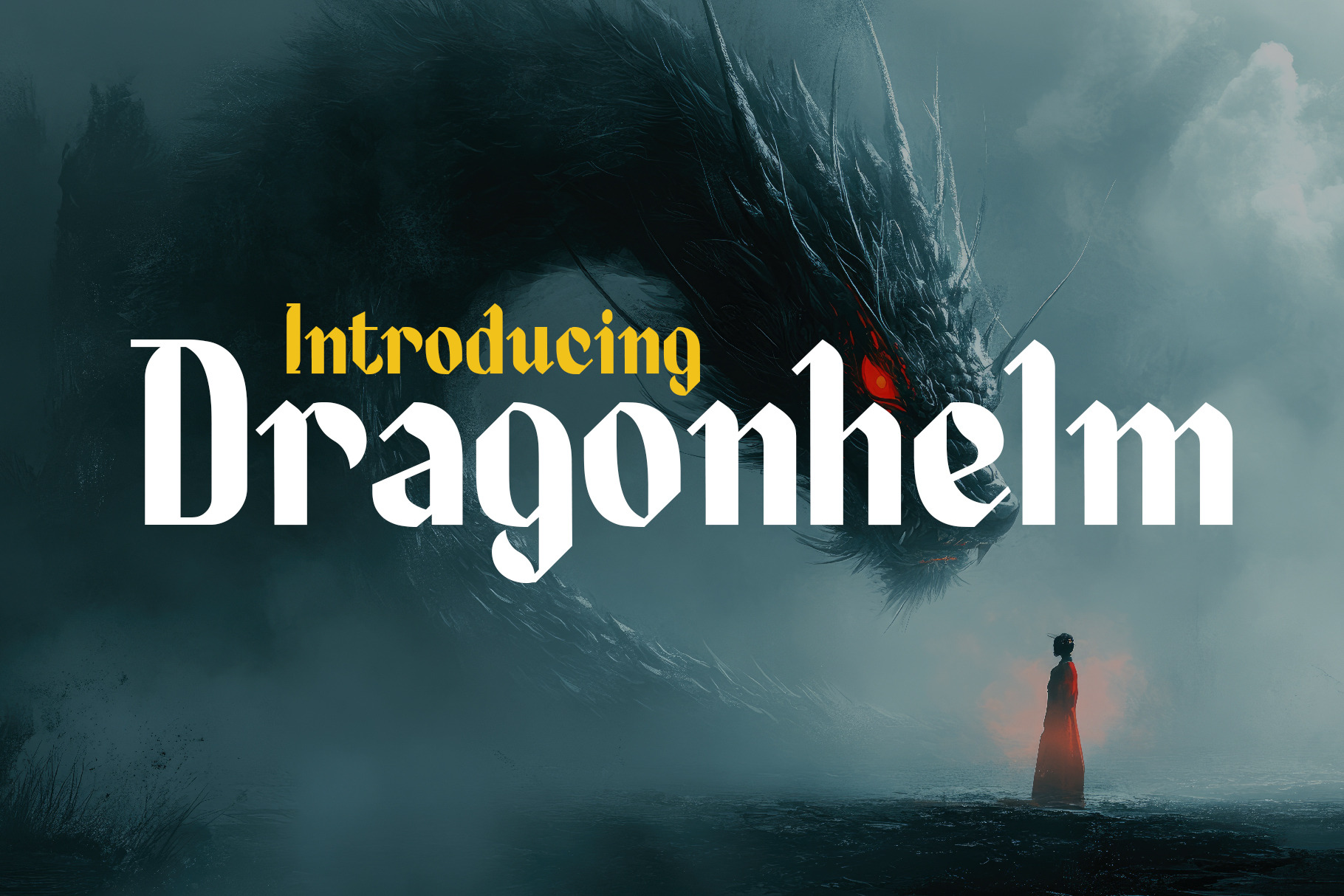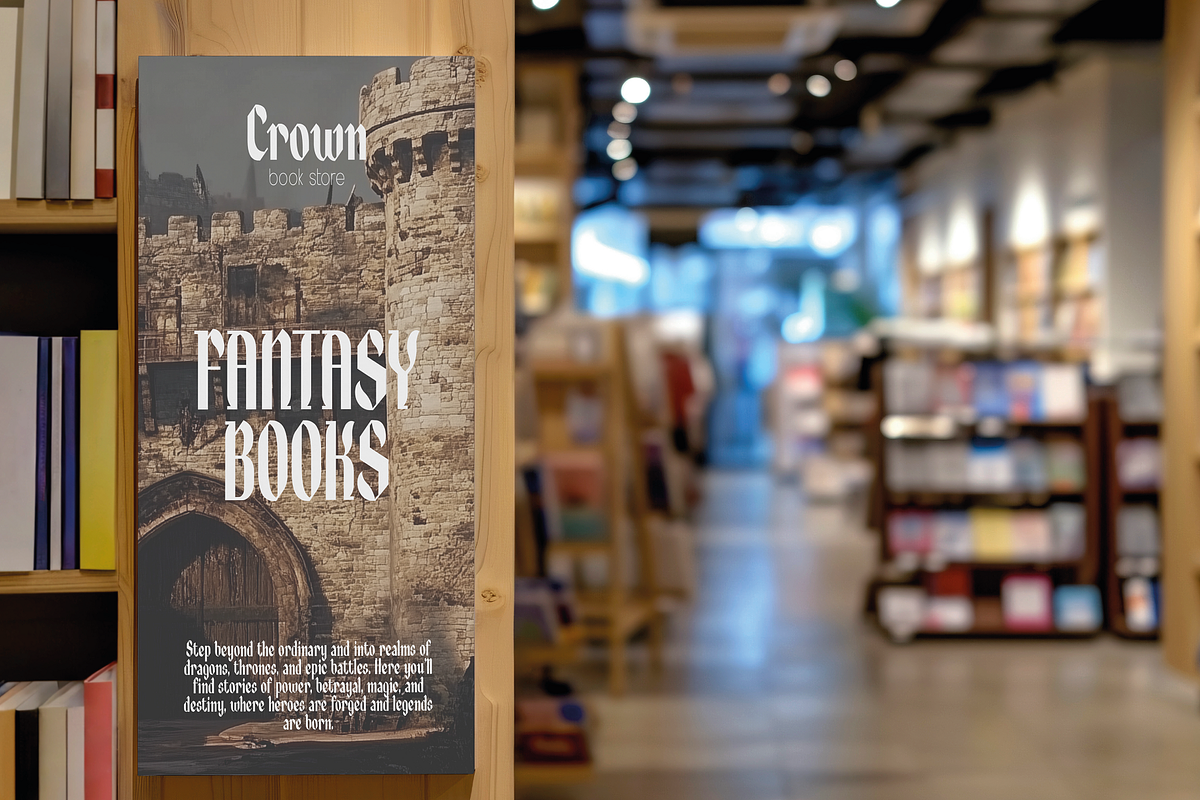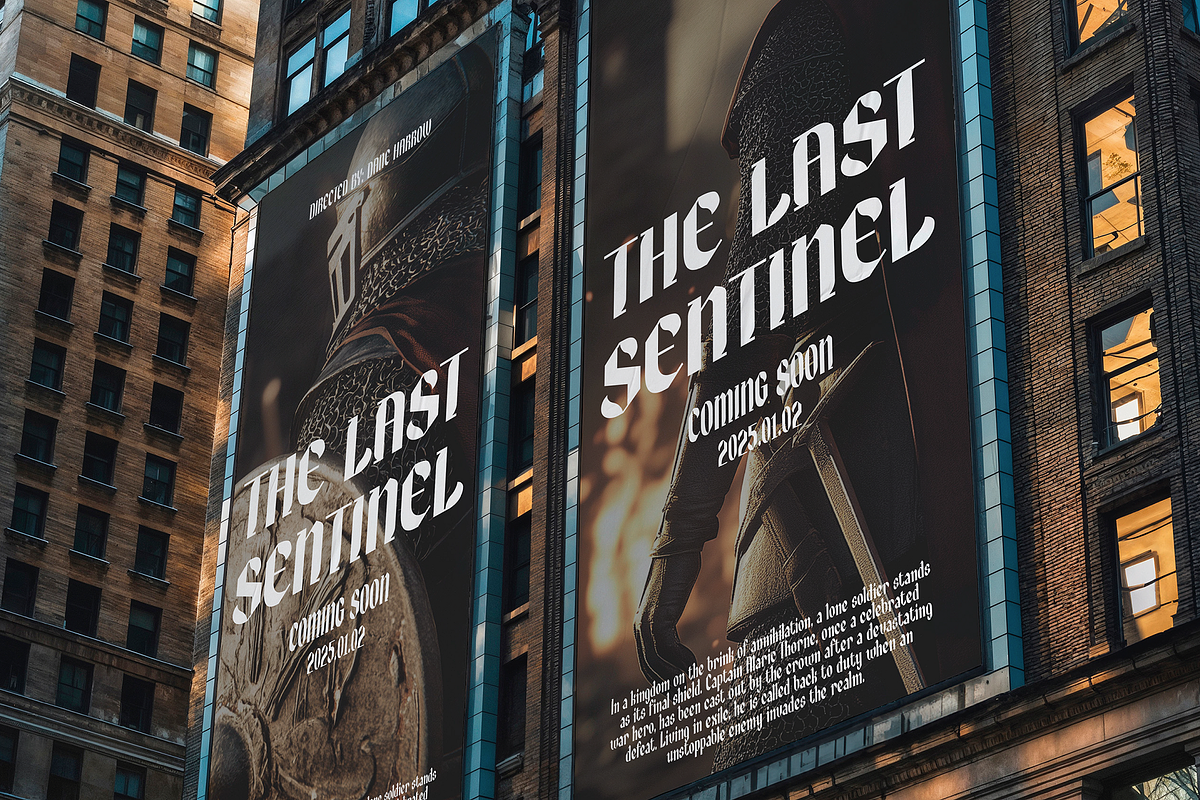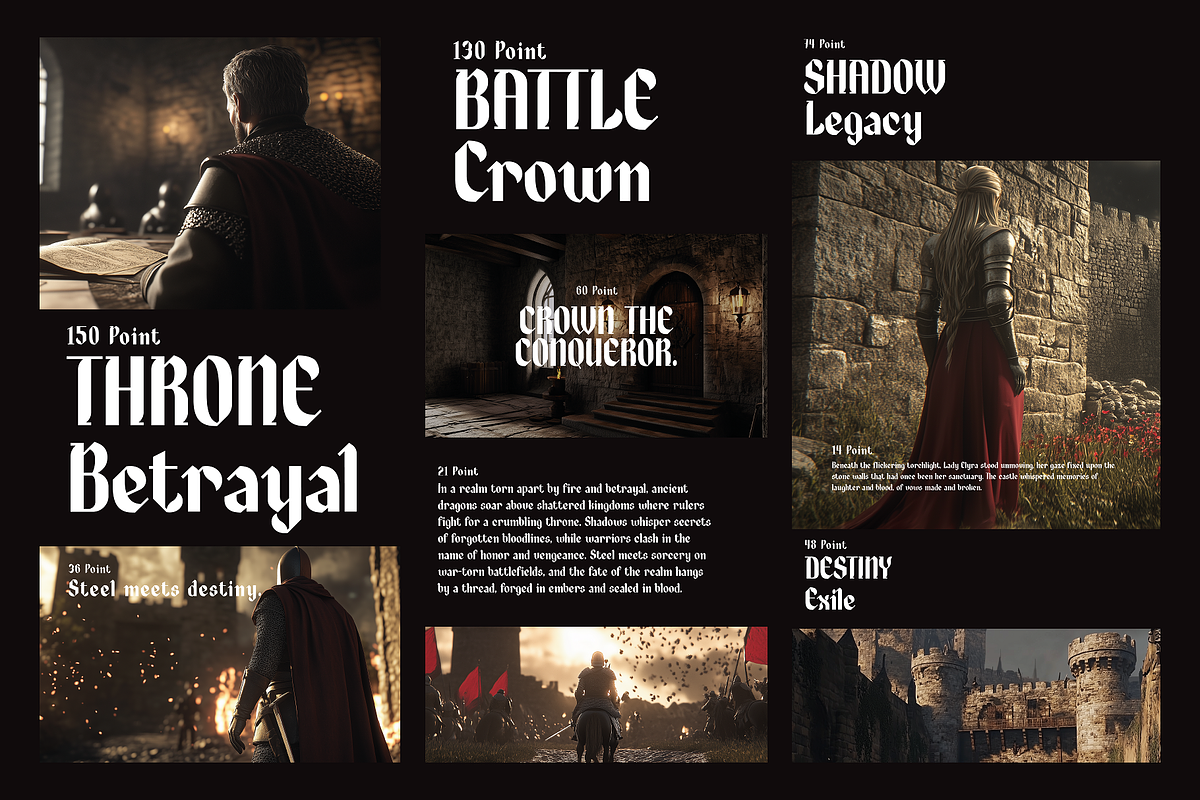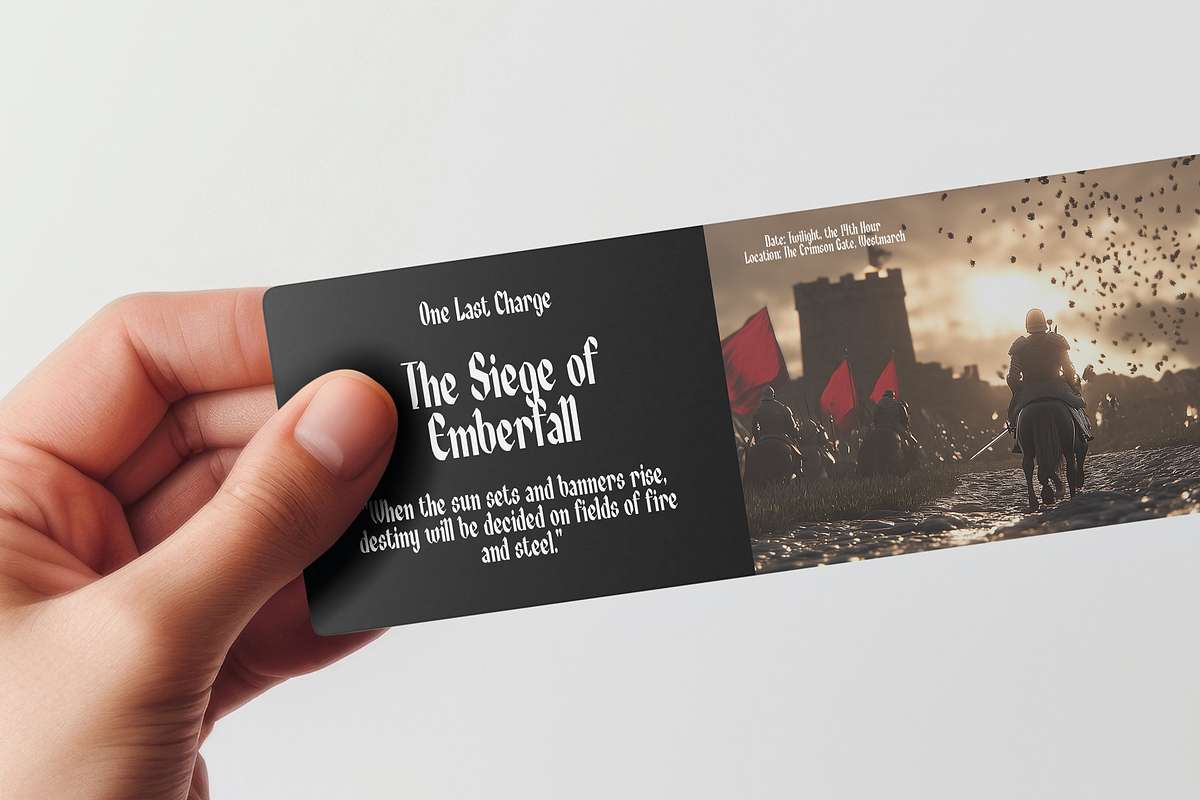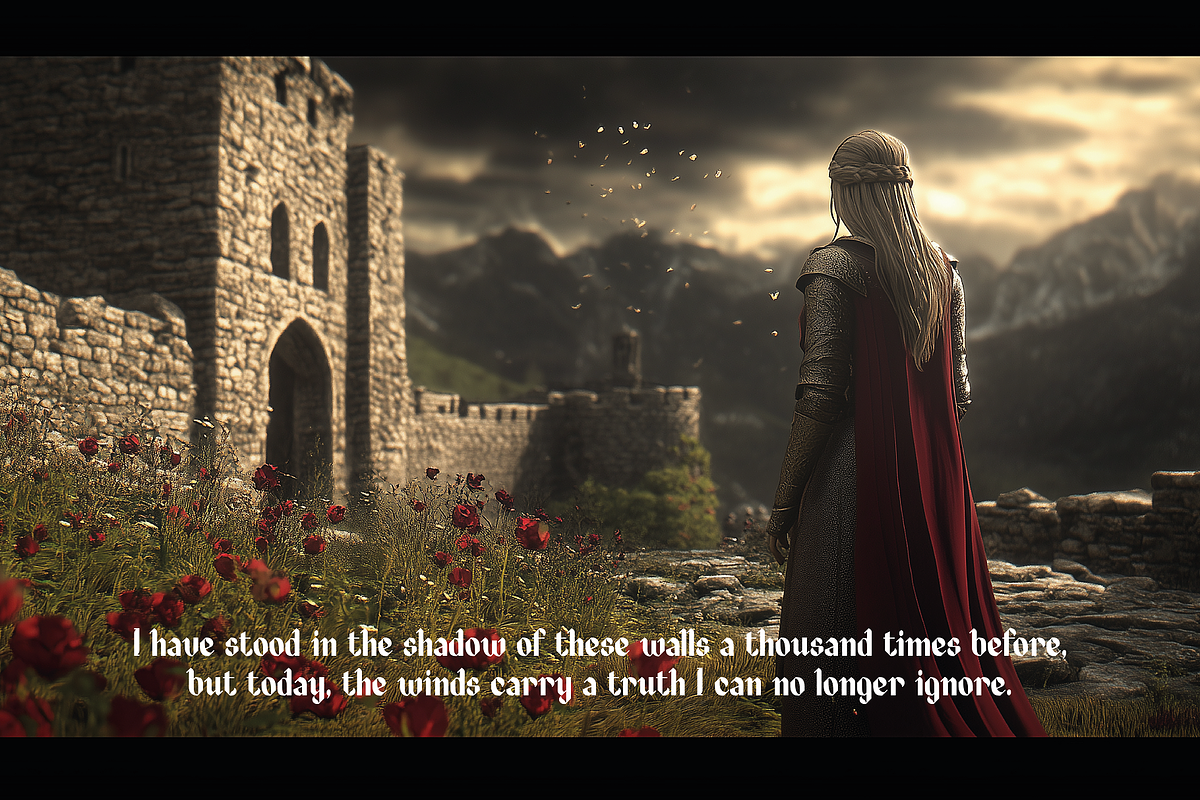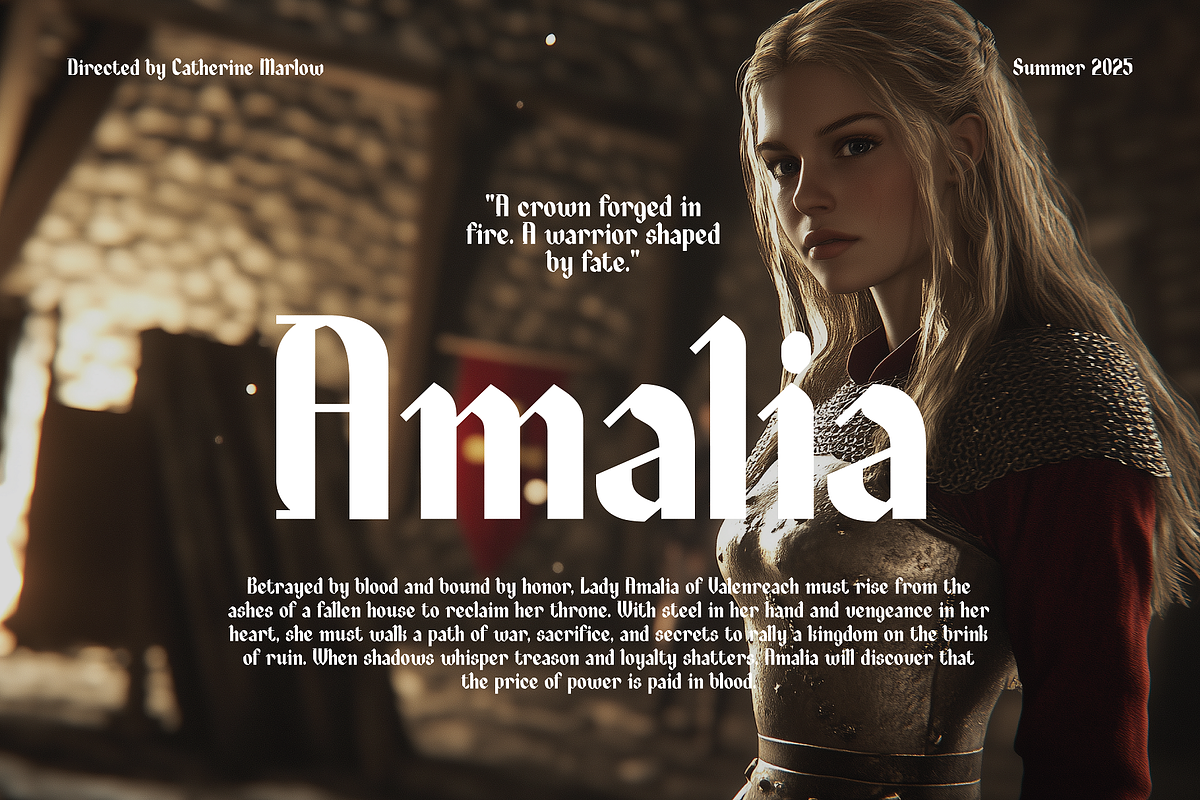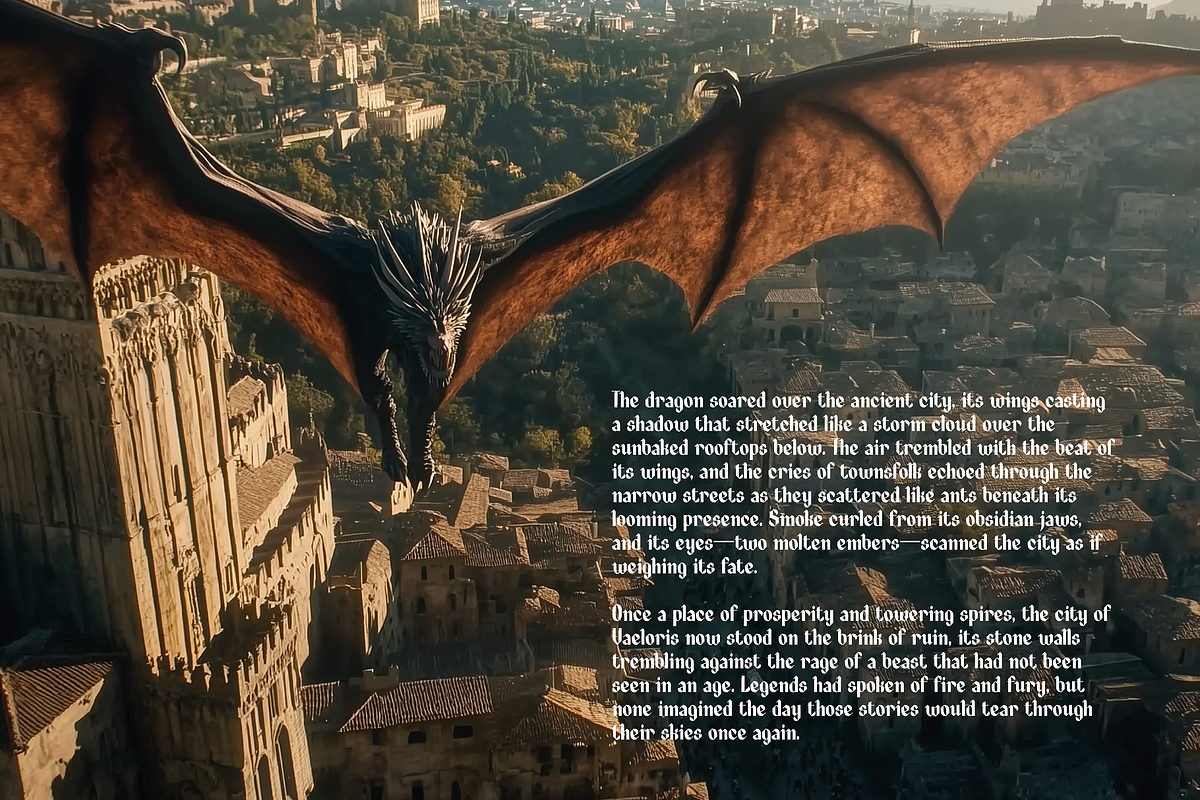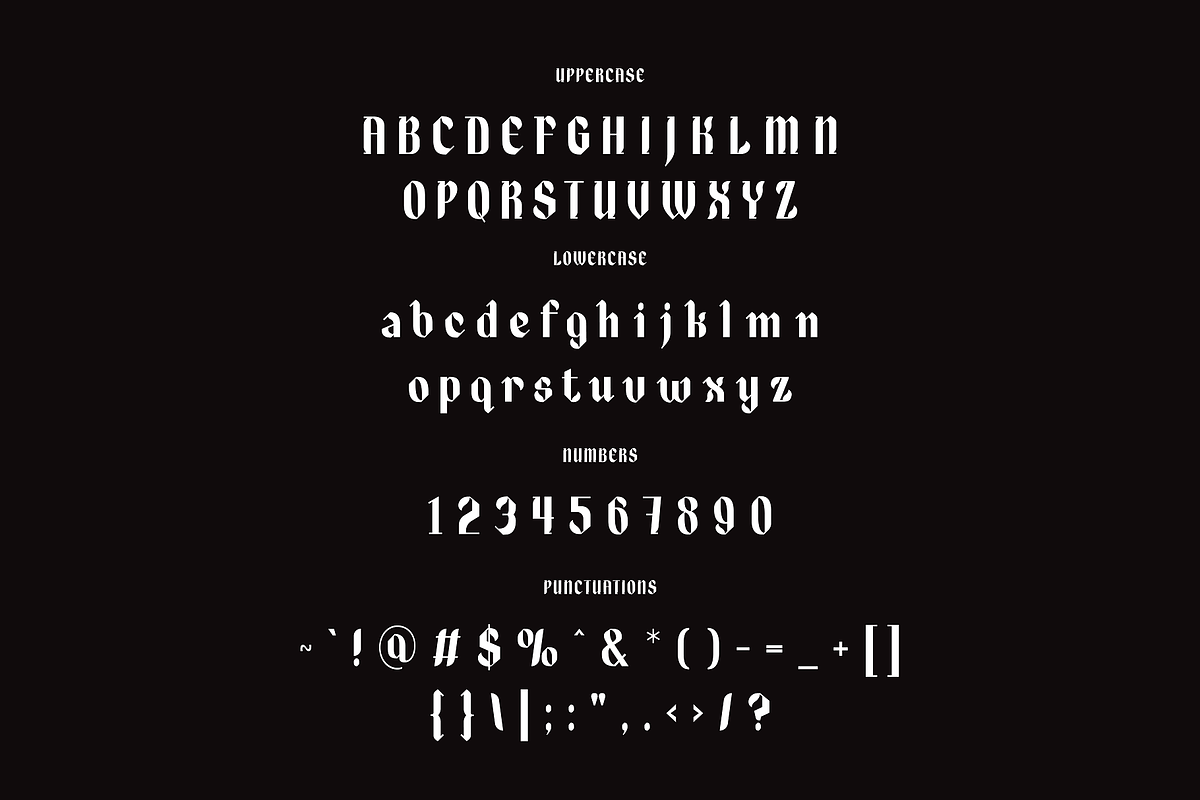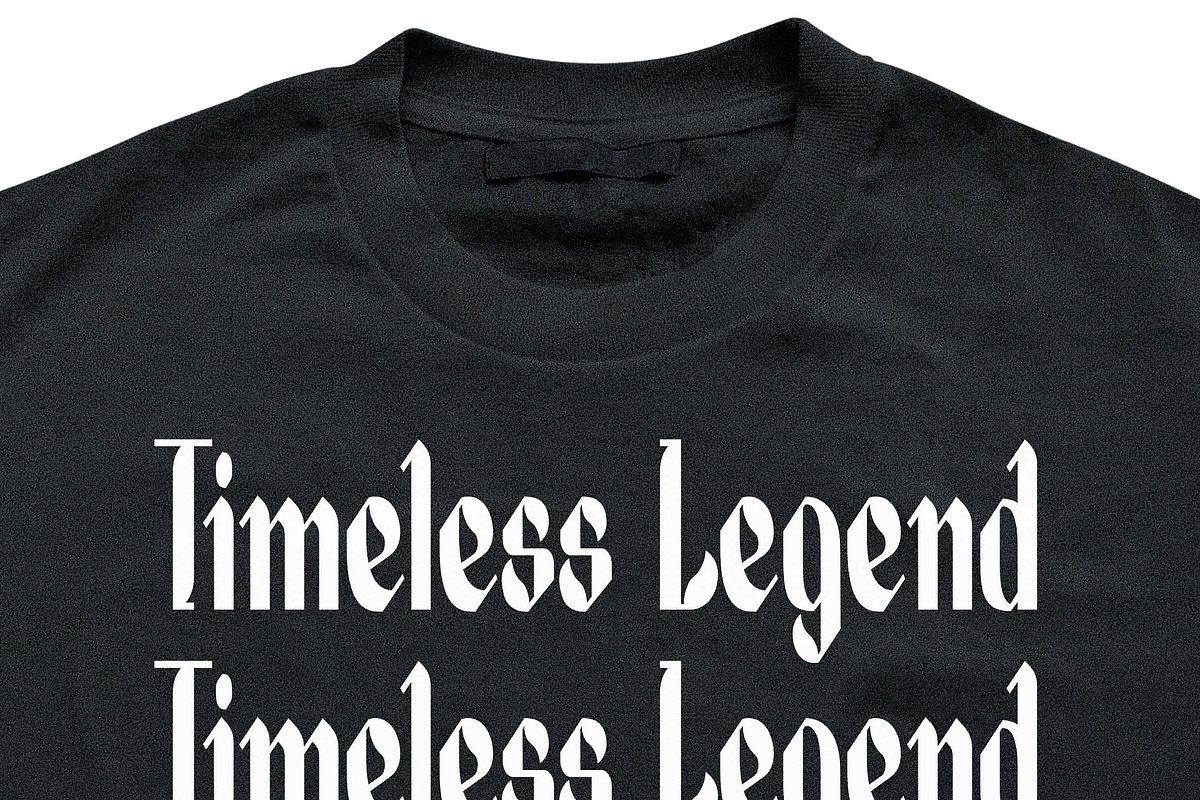
Dragonhelm - Medieval Typeface
Unleash the power of legend with Dragonhelm, a breathtaking medieval-inspired typeface that exudes the grandeur of a bygone era. With intricate details and bold strokes, this typeface is a tribute to the timeless beauty of medieval calligraphy, designed to captivate and command attention.
Ideal for a wide array of creative projects, Dragonhelm is perfect for:
- Movie titles and fantasy posters
- Epic book covers and storytelling designs
- Game branding and RPG campaigns
- Historical and medieval-themed events
- Artisan products and vintage-inspired branding
Whether you're crafting a tale of knights and dragons or evoking the mystique of ancient realms, Dragonhelm brings unparalleled elegance and drama to your designs. Its striking presence and artistic flair make it a must-have for any project that seeks to inspire awe and wonder.
Let Dragonhelm transport your audience to a world of castles, courage, and enchantment. The legend begins here!